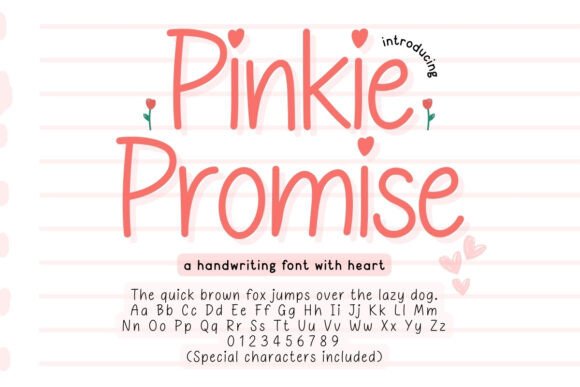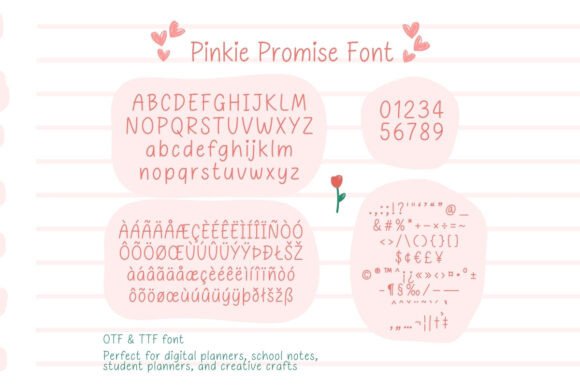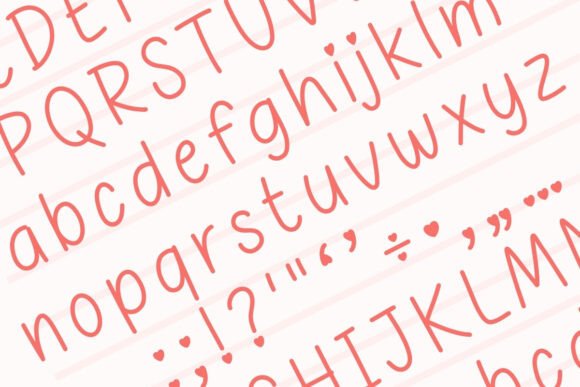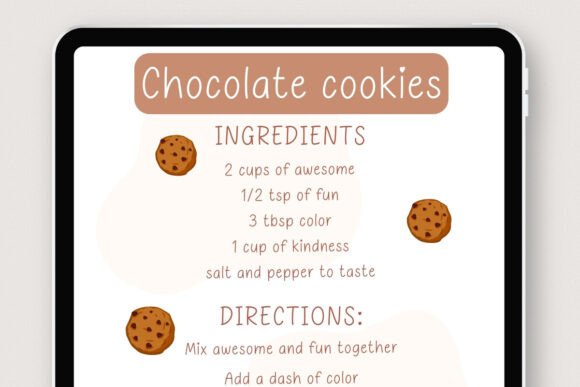
Pinkie Promise Font
About the Pinkie Promise Font
Make a bold statement with Pinkie Promise Font, a powerful and memorable font. Pinkie Promise is a charming and whimsical handwriting font adorned with heart accents, perfect for adding a touch of love and creativity to your projects!
Whether you’re taking school notes, designing digital planners in GoodNotes or Procreate, or crafting on Canva, this adorable font will bring warmth and personality to every project. Its playful design and neat strokes make it suitable for students, crafters, and anyone who loves cute fonts!
Pinkie Promise’s playful design shines in projects requiring a touch of whimsy, such as children’s books, greeting cards, social media graphics, and branding for businesses targeting a young, female demographic. It works well for short headlines, quotes, and labels, adding a handcrafted charm. However, its delicate nature makes it less suitable for body text or UI elements where readability is paramount.
For optimal pairings, consider contrasting Pinkie Promise with a clean sans-serif like Montserrat for a balanced modern look, or a classic serif such as Garamond for a sophisticated contrast. A simple geometric sans-serif like Futura would also offer a strong visual counterpoint, highlighting Pinkie Promise’s handwritten charm.
The font’s core personality is undeniably friendly and approachable, conveying warmth and a sense of youthful optimism. Its slightly irregular strokes add a charming, handcrafted feel, making it ideal for projects emphasizing playfulness and creativity.
Pinkie Promise Font Usage Examples
Pinkie Promise Font Example